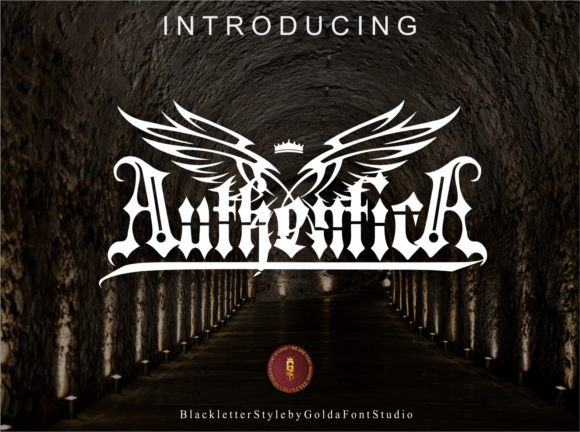
Behold the Authentica Font, a crown jewel in the realm of blackletter fonts, a testament to the enduring allure of vintage signs and retro style labels. Crafted with meticulous care by the artisans of Golda Font Studio, Authentica is more than just a font; it's a gateway to a bygone era, an invitation to embrace nostalgia and rekindle the charm of days gone by.
With its intricate flourishes, bold strokes, and undeniable character, Authentica commands attention, making it the perfect choice for those seeking to create designs that transcend time. Whether you're a seasoned designer or a creative spirit just starting out, Authentica is your muse, your faithful companion in the pursuit of visual storytelling.
Imagine the impact of your posters, the allure of your logos, the distinction of your labels, and the sophistication of your packaging when adorned with the timeless beauty of Authentica. This font is not just a collection of letters; it's a treasure chest filled with endless possibilities, a key to unlocking your creative potential.
With Authentica at your disposal, you'll find yourself immersed in a world of creativity, where every project becomes a masterpiece, every design a reflection of your unique style. Its PUA encoding opens up a universe of glyphs and swashes, empowering you to effortlessly infuse your designs with personality and flair.
Whether you're a seasoned designer seeking to elevate your work to new heights or a budding entrepreneur seeking to make a lasting impression, Authentica is your secret weapon, your passport to a world of design excellence. Embrace the allure of the past, harness the power of nostalgia, and let Authentica guide you towards creative greatness.